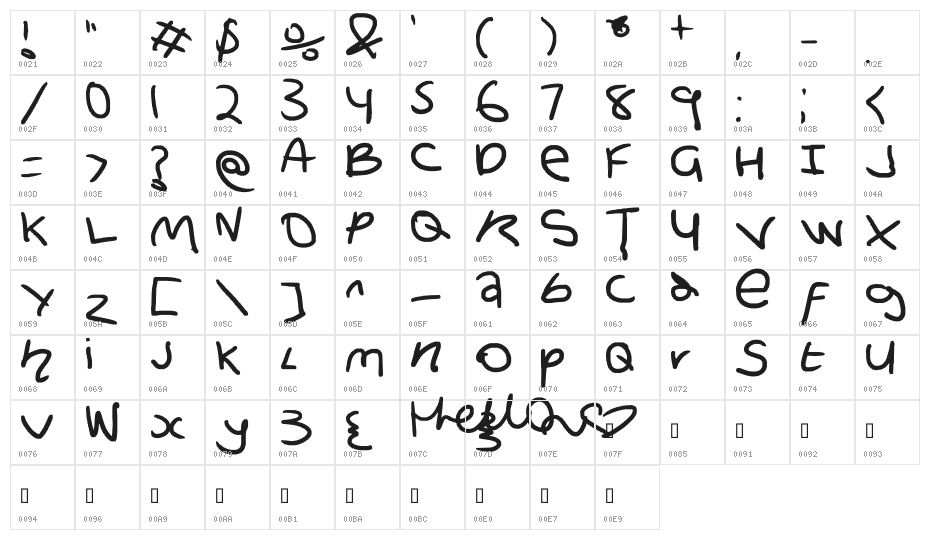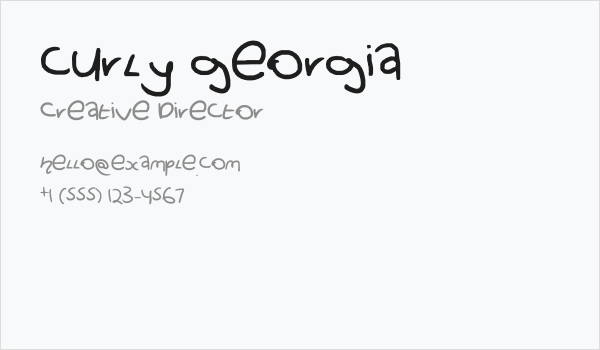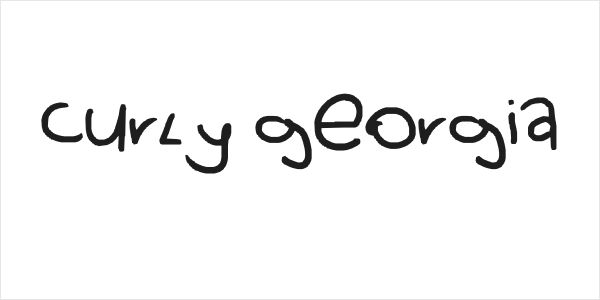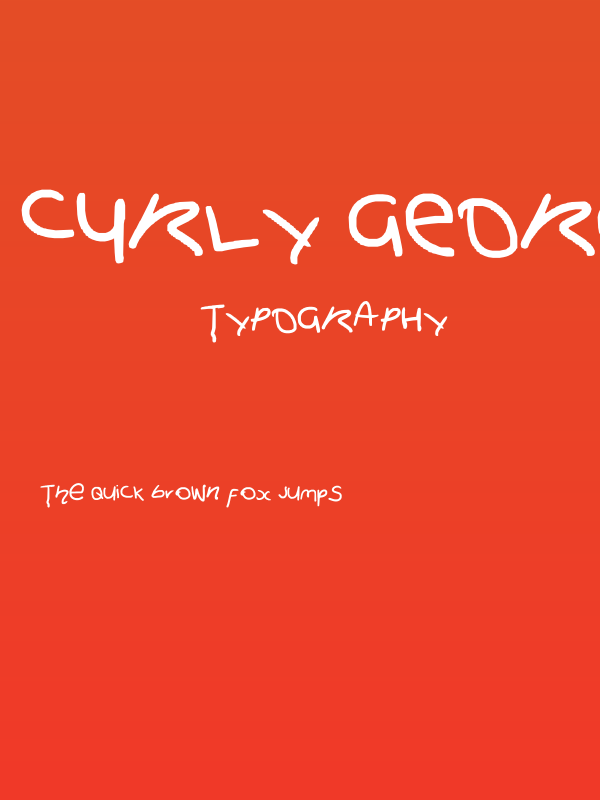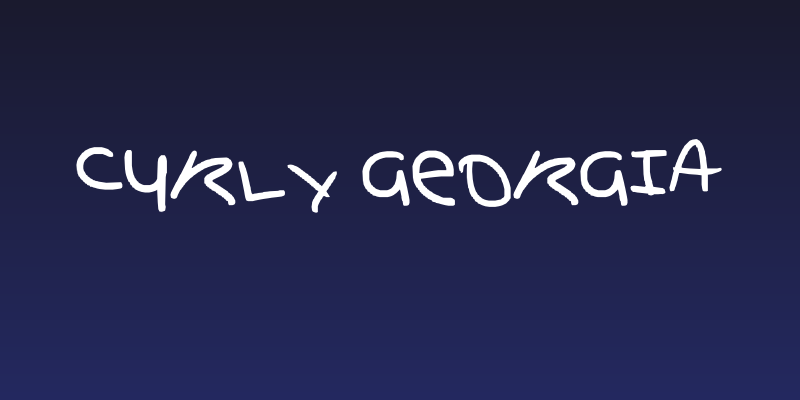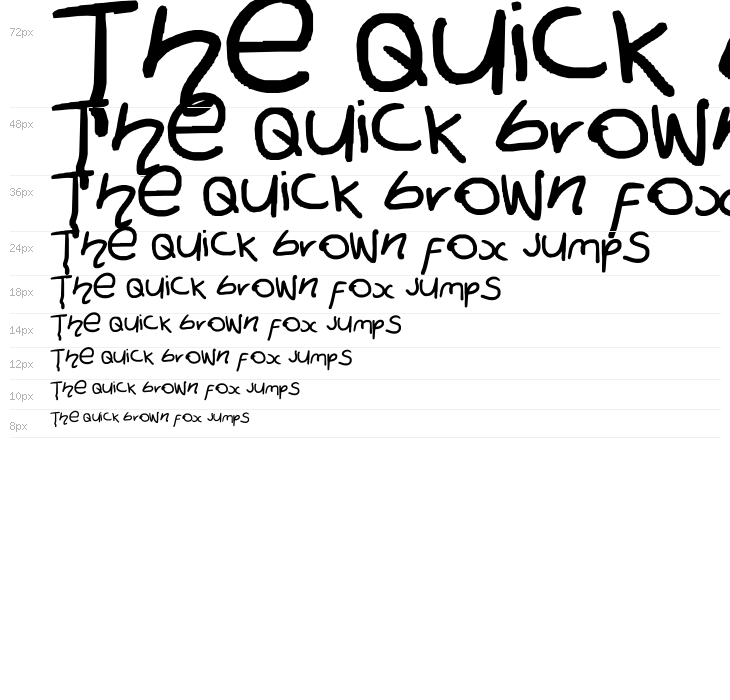
curly georgia Font
curly georgia Description
This font features a playful and informal handwritten style with a casual, flowing appearance. The characters are slightly irregular, giving it a personal and approachable feel. The strokes are moderately thick, with a consistent weight that maintains readability. The uppercase and lowercase letters are distinct, with a whimsical touch that adds character. Numbers and special characters are crafted in the same playful manner, ensuring a cohesive look across all elements. This font is ideal for projects that require a friendly and inviting tone.